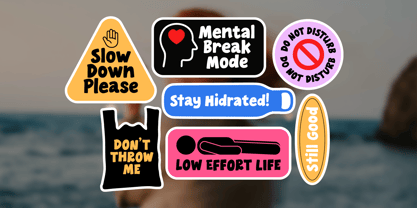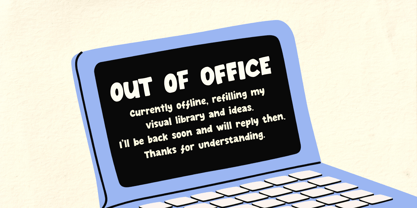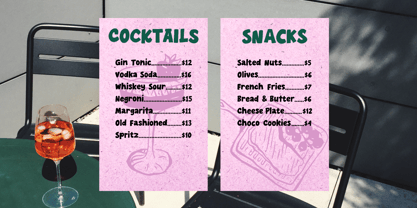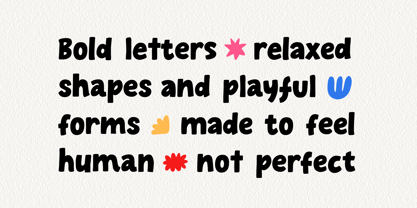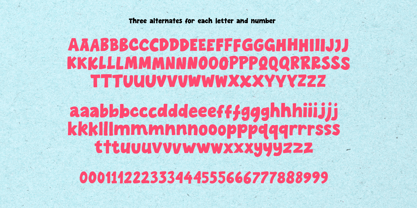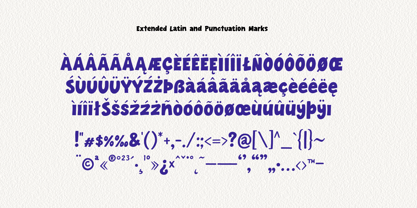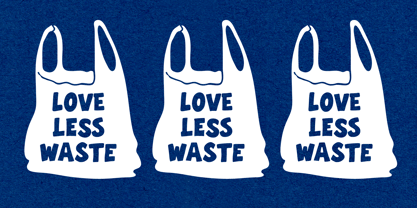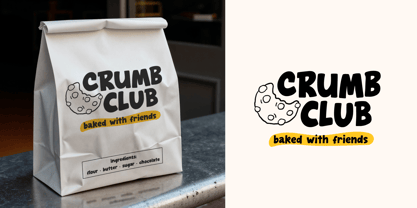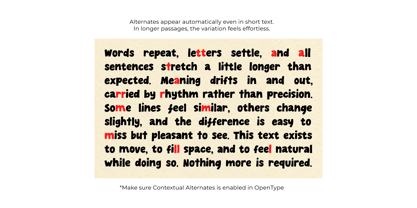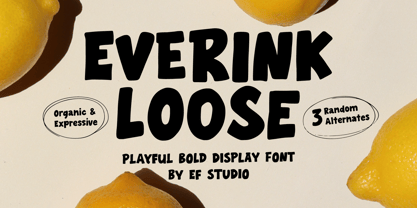
Everink Loose
by Ef Studio
The Everink Loose Font Family was designed by Luthfi Fauzi and published by Ef Studio. Everink Loose contains 1 styles. More about this family
Everink Loose is a bold display type designed to feel alive as you type. Each letter and number comes with three alternates that rotate automatically through contextual alternates. No manual switching, no careful setup. Even in short words, subtle variation already appears. In longer text, the rhythm becomes more visible: repeated letters shift naturally, shapes echo without repeating exactly, and the text stays expressive without feeling busy. Everink Loose works best when you let it flow. It’s made for posters, menus, packaging, social graphics, and any space where personality matters more than precision. Loose shapes, rounded energy, and confident weight give the font a human presence, imperfect in the right way. Just type. The alternates follow. Features: Three alternates per letter and number Automatic contextual alternates Uppercase, lowercase, numerals, extended latin, and punctuation marks included Make sure Contextual Alternates are enabled. Best for: Posters · Packaging · Menus · Editorial headlines · Social content · Branding with character